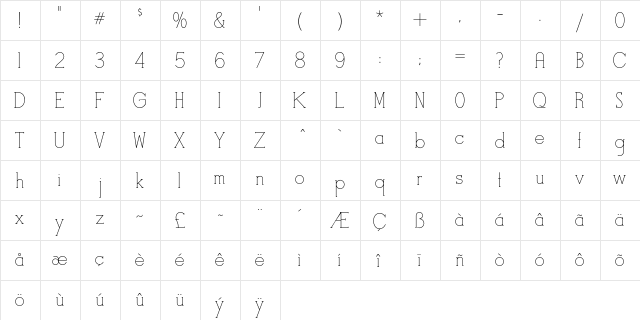
StymieStylus light
Design Context for StymieStylus Typeface
StymieStylus takes a measured approach to typography — its balanced proportions and neutral character make it a reliable workhorse for both digital and print work. The delicate stroke weight brings airiness and refinement to layouts.
Pro Tip: Use StymieStylus in both headline and body roles to test its range before committing to a single application.